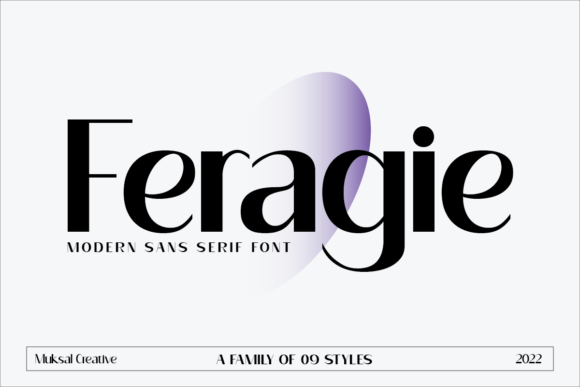
Feragie Font: A Modern Sans-Serif Typeface for Diverse Design Needs
The world of typography is vast and diverse, with numerous fonts designed to cater to various design requirements. Among these, the Feragie font stands out as a unique and modern sans-serif typeface, offering a versatile solution for a wide range of design projects. In this article, we’ll delve into the features, benefits, and potential applications of the Feragie font, exploring how it can elevate your designs.
Introducing Feragie Font
Feragie is a contemporary sans-serif font family that comprises 9 distinct styles, ranging from the subtle Thin to the bold Black. This extensive range allows designers to experiment with different weights and styles, ensuring that their creative vision is accurately conveyed. The Feragie font family is meticulously crafted to provide a cohesive visual identity, making it an excellent choice for designers seeking a unified aesthetic.
Key Features of Feragie Font
- 9 Styles: Feragie offers a comprehensive range of 9 styles, from Thin to Black, providing designers with the flexibility to adapt to various design requirements.
- Modern Sans-Serif Design: Feragie boasts a sleek, modern sans-serif design, making it perfect for projects that demand a clean and contemporary look.
- Versatility: The font’s versatility allows it to be used across multiple platforms, including magazines, posters, branding, websites, and more.
- Cohesive Visual Identity: The Feragie font family is designed to provide a unified visual identity, ensuring that your design elements work harmoniously together.
Benefits of Using Feragie Font
The Feragie font offers several benefits that make it an attractive choice for designers:
- Ease of Readability: Feragie’s clear and concise design ensures excellent readability, making it suitable for body text and headings.
- Flexibility: With 9 styles to choose from, designers can adapt Feragie to various design contexts, from elegant and refined to bold and attention-grabbing.
- Time-Saving: The Feragie font family provides a comprehensive range of styles, saving designers time and effort in selecting and pairing fonts.
- Scalability: Feragie’s vector-based design allows it to scale seamlessly, ensuring that it remains crisp and clear across different resolutions and sizes.
Potential Applications of Feragie Font
Feragie’s versatility makes it an excellent choice for a wide range of design projects, including:
- Magazines and Newspapers: Feragie’s clear readability and range of styles make it perfect for magazine and newspaper designs.
- Posters and Flyers: The font’s bold and attention-grabbing styles are ideal for creating eye-catching posters and flyers.
- Branding and Identity: Feragie’s modern sans-serif design makes it an excellent choice for branding and identity projects, providing a clean and contemporary look.
- Websites and Digital Platforms: Feragie’s web-friendly design and scalability make it suitable for use on websites and digital platforms.
Tips for Using Feragie Font Effectively
To get the most out of Feragie, consider the following tips:
- Experiment with Different Styles: Take advantage of Feragie’s range of styles to create visual hierarchy and emphasize key design elements.
- Pair with Other Fonts: Combine Feragie with other fonts to create a unique and visually appealing typography scheme.
- Adjust Font Sizes and Weights: Adjust font sizes and weights to create a clear visual hierarchy and ensure optimal readability.
- Consider Legibility: Ensure that your chosen font size and style are legible across different devices and resolutions.
In conclusion, the Feragie font is a versatile and modern sans-serif typeface that offers a comprehensive range of styles to cater to diverse design needs. Its excellent readability, flexibility, and scalability make it an attractive choice for designers. By understanding the features, benefits, and potential applications of Feragie, designers can harness its creative potential to elevate their designs and create visually stunning typography.